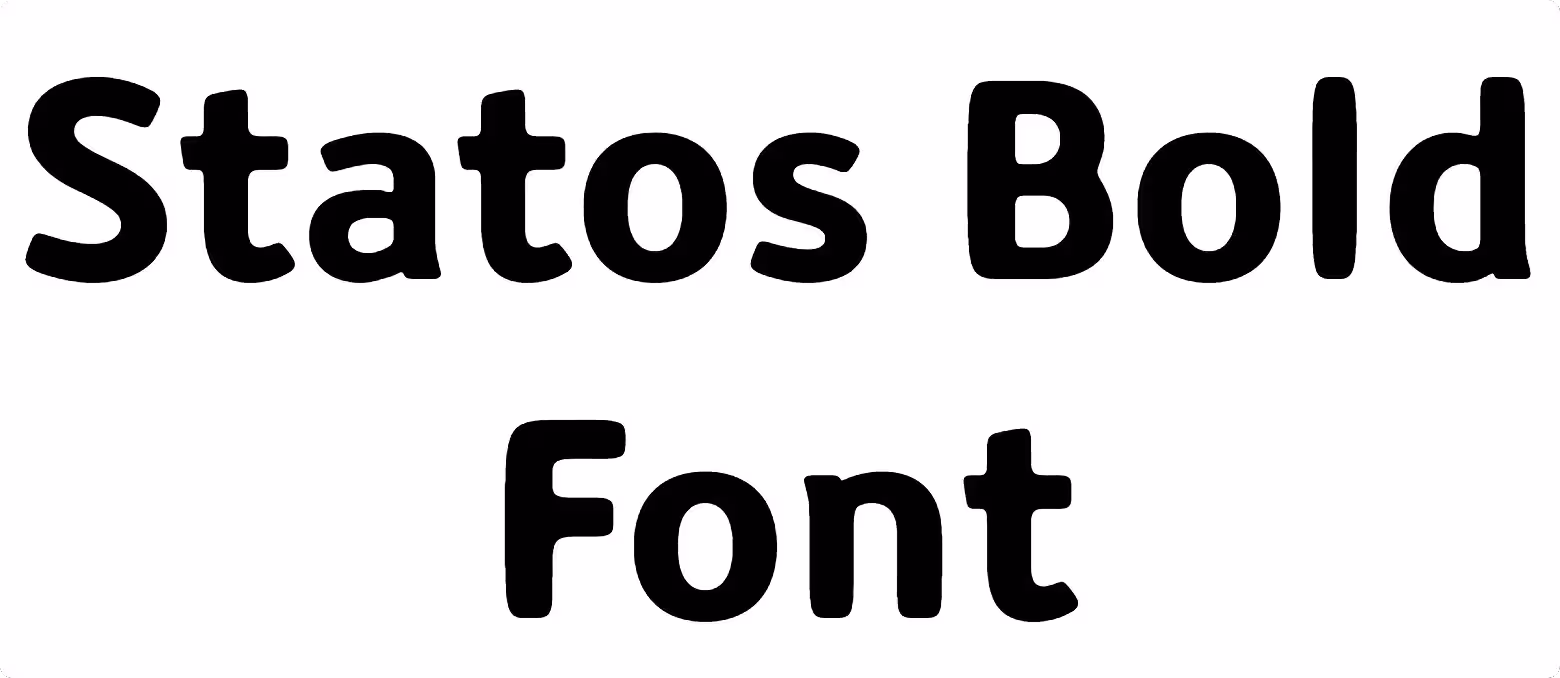
Statos Bold
Statos Bold is a fancy font created by Fernando Haro and released through deFharo (2026). Bold and full of character, it's built to stand out rather than blend in. The free download includes two styles, and you can try every one of them with your own text in the preview above.
In the notes inside the font file, Fernando Haro describes it like this: “Statos is a worn, blurred sans-serif typeface, built on the conviction that imperfection is not a flaw—it's the message.Statos questions typographic perfection.”
- Designer: Fernando Haro
- Publisher: deFharo
You get every letter from A to Z in both cases and all the numbers from 0 to 9, which means Statos Bold can handle full sentences, dates and prices. Common punctuation such as &, !, ? and @ is included as well. It also has the accented letters you need for Spanish, French, German, Portuguese and Italian.
Statos Bold is a natural fit for posters, logos and eye-catching headlines. Use it for one standout word or headline and let simpler fonts handle the rest. Because the family has more than one style, you can mix them in a single design for headings, subheadings and highlights.
Yes. Statos Bold has ligatures that turn on by themselves in most design apps and browsers, so you don't need to do anything special.
Yes. Statos Bold includes the accented letters needed for Spanish, French, German, Portuguese and Italian, so it works for more than just English.